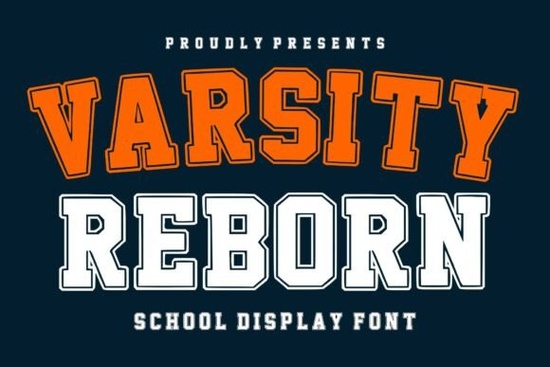
If you're working on a design that needs to capture the spirit of school pride, athletic energy, or nostalgic campus vibes, Varsity Reborn Font is a smart choice. This display font channels the bold, blocky lettering seen on classic letterman jackets and gym banners but with clean, modern vector precision that works just as well on digital merch as it does on printed posters.
Varsity Reborn isn’t trying to be subtle. Its thick strokes, squared terminals, and slightly condensed proportions give it instant presence. That makes it especially useful for creators who need text to read clearly from a distance think team T-shirts, event flyers, or social media graphics promoting a school fundraiser.
What kinds of projects work best with Varsity Reborn?
This font shines in contexts where confidence and tradition matter. Here are a few real-world uses:
- Sports team branding – From custom jerseys to locker room signs
- School merchandise – Hoodies, mugs, and graduation keepsakes
- Retro-themed designs – Think 80s throwback parties or vintage diner menus
- Print-on-demand shops – Bold enough to stand out in thumbnail previews
- Event posters – Pep rallies, homecoming, or alumni reunions
Because it’s a display font, Varsity Reborn works best in headlines or short phrases. Avoid using it for body text it’s meant to grab attention, not to be read in paragraphs.
How does it compare to other bold display fonts?
If you’ve browsed Creative Fabrica’s collection, you might already know fonts like Extra Bold, which leans more toward modern minimalism, or Retro Funky, which brings playful grooviness rather than athletic grit. Varsity Reborn sits comfortably in the middle: structured like a classic but flexible enough for contemporary use.
For school-related projects specifically, it pairs naturally with fonts like School Mission, which offers a softer, more academic feel great if you’re layering headlines with subheadings. And if your design calls for weathered texture or grunge effects, consider combining it with something like Rustpress for contrast.
Even if your project isn’t school-themed, Varsity Reborn’s strong silhouette can add a sense of community or camaraderie. A local coffee shop running a “neighborhood challenge” promo? A fitness brand launching a team-based workout program? This font subtly signals unity and effort without saying a word.
Is it beginner-friendly for crafters and small businesses?
One practical tip: because of its blocky nature, Varsity Reborn handles tight spacing well. You can often reduce letter-spacing slightly to make words feel more cohesive especially useful when designing circular logos or arched text for caps and mugs.
Also worth noting: while it looks great in solid black or team colors, don’t overlook white-on-dark combos. The font’s clear counters and open shapes prevent it from visually “filling in” at smaller sizes a common issue with ultra-bold typefaces.
When should you consider a different font?
Varsity Reborn is purpose-built for impact, not elegance. If your project leans toward sophistication say, a boutique wedding invite or a luxury product label you’ll want something with more finesse, like Vertical Dentist, which offers geometric clarity without the sporty edge.
Likewise, if you’re aiming for whimsy or handcrafted charm, this font might feel too rigid. But for anything that benefits from a “roll-up-your-sleeves” attitude, it’s hard to beat.
Before you commit, test how it renders at your final output size. While it scales beautifully for large-format prints, very tiny applications (like embroidery on keychains) may lose some legibility in the finer details.
If those boxes are ticked, Varsity Reborn could be the reliable, energetic typeface your next project has been missing.